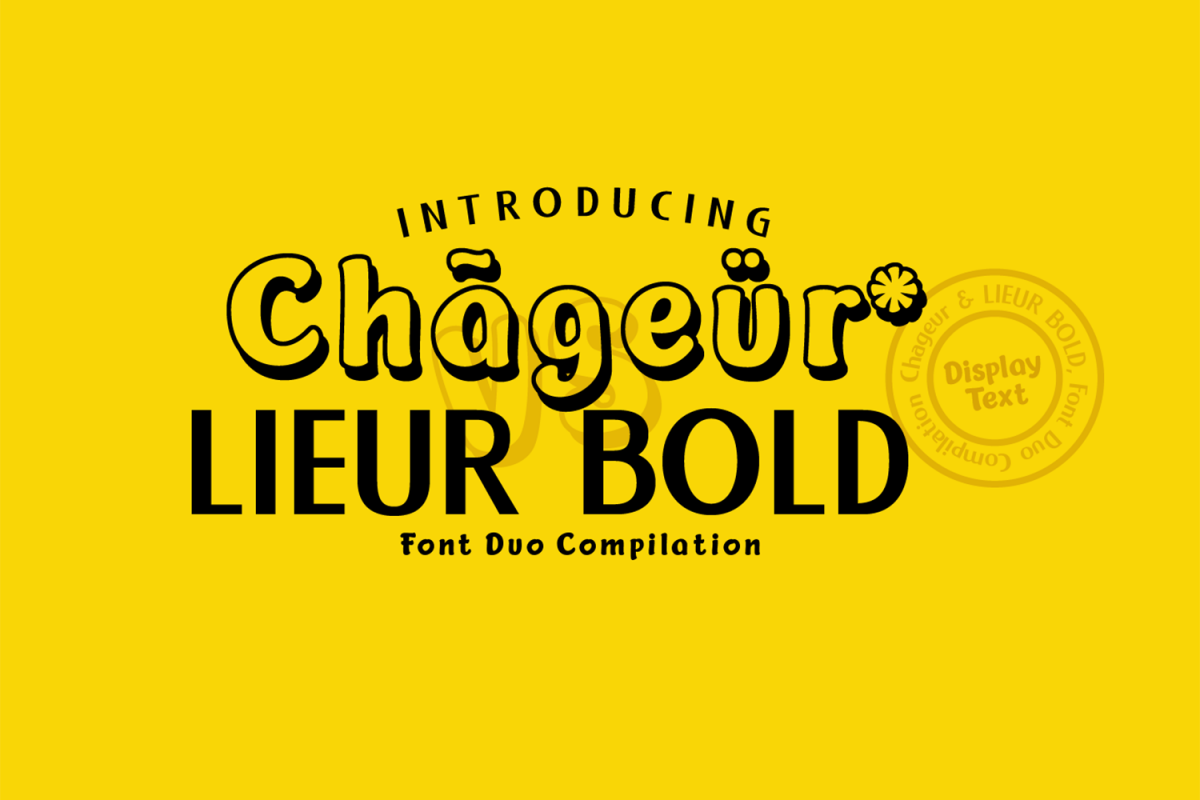
Chageur-LIEUR Bold font Duo
LIEUR-Bold
Chageur
Chageur Shadow
Chageur & Lieur Bold is a combination of 2 different font types, has a relaxed and serious impression, can be used for text, logos, product labels and so on.